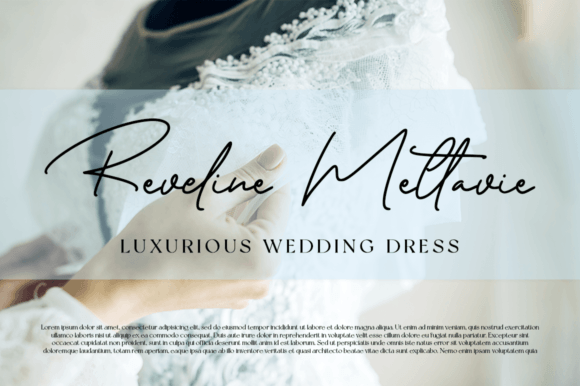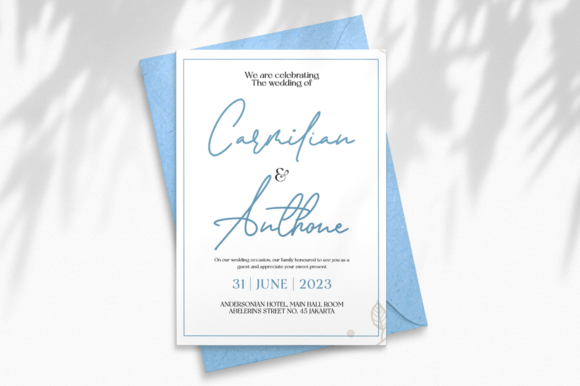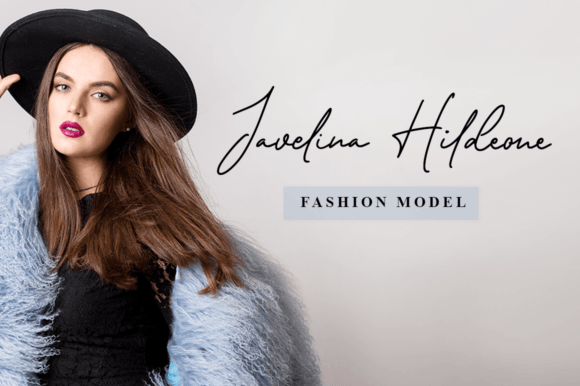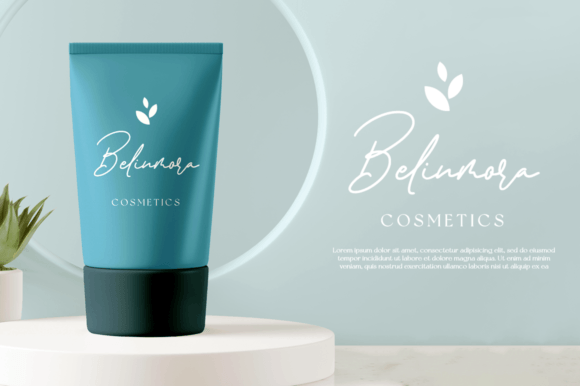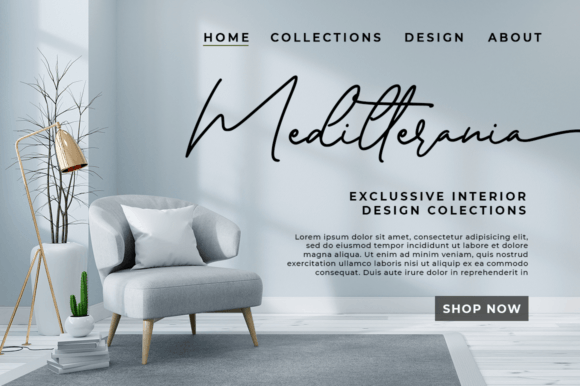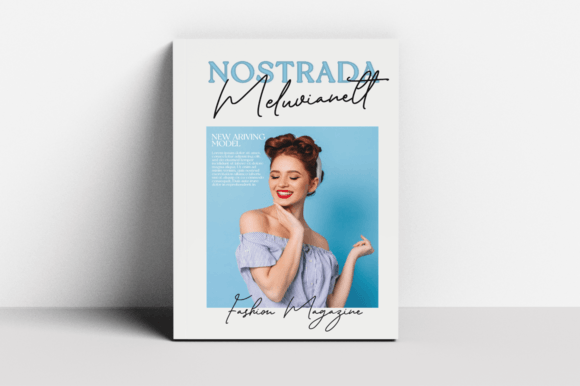
The Magic of Handwritten Fonts: Introducing Anstonishing Font
Have you ever found yourself scribbling down ideas in a coffee shop, only to realize that the messy handwriting on your napkin has become the spark that sets your creative project ablaze? That’s exactly what happened to us when we stumbled upon the Anstonishing Font. This beautiful and delicate handwritten font is more than just a pretty face – it’s a game-changer for designers looking to add a touch of luxury to their work.
With its unique feel and stunning impact, the Anstonishing Font is sure to elevate any design project you take on. Whether you’re creating a wedding invitation, a brand logo, or a marketing brochure, this font is sure to add a level of sophistication and elegance that’s hard to replicate with more traditional fonts. And with its PUA encoding, accessing all of the amazing glyphs and ligatures is a breeze, making it a valuable tool for designers of all levels.
- Unique Characteristics: The font features a unique blend of modern and vintage elements, with intricate details and ornate flourishes, making it perfect for creating eye-catching headlines and titles.
Anstonishing Font Review
As a designer, I was excited to try out the Anstonishing Font. Overall, I have mixed feelings about this font. ✨ Some things work well, but there are also some limitations that I want to highlight.
- ✨ Unique and creative design: Anstonishing Font has a distinct and eye-catching look that can add a touch of sophistication to any design project.
- ✨ Wide range of applications: This font can be used for both digital and print media, making it a versatile choice for designers.
- ✨ Good for headings and titles: Anstonishing Font is particularly effective when used for headings and titles, as it adds a touch of elegance and sophistication.
- ⚠️ Limited legibility: In smaller font sizes, the Anstonishing Font can be difficult to read, which may limit its use in certain situations.
- ⚠️ Not ideal for body text: While Anstonishing Font is great for headings and titles, it may not be the best choice for body text, as it can be overwhelming and difficult to read.
Overall, I think Anstonishing Font is a great choice for designers who want to add a touch of creativity and sophistication to their projects. However, it’s essential to use it judiciously and in the right context to avoid any potential limitations.
Tips for Getting the Most Out of Anstonishing Font
For best results, use Anstonishing Font in combination with high-contrast colors to create a striking visual effect. Experiment with different font sizes and styles to create a unique design. Consider pairing Anstonishing Font with other bold fonts to create a visually appealing contrast.
Anstonishing Font is ideal for use in:
– Headlines and titles
– Emphasis and call-to-action text
– Creative and artistic projects